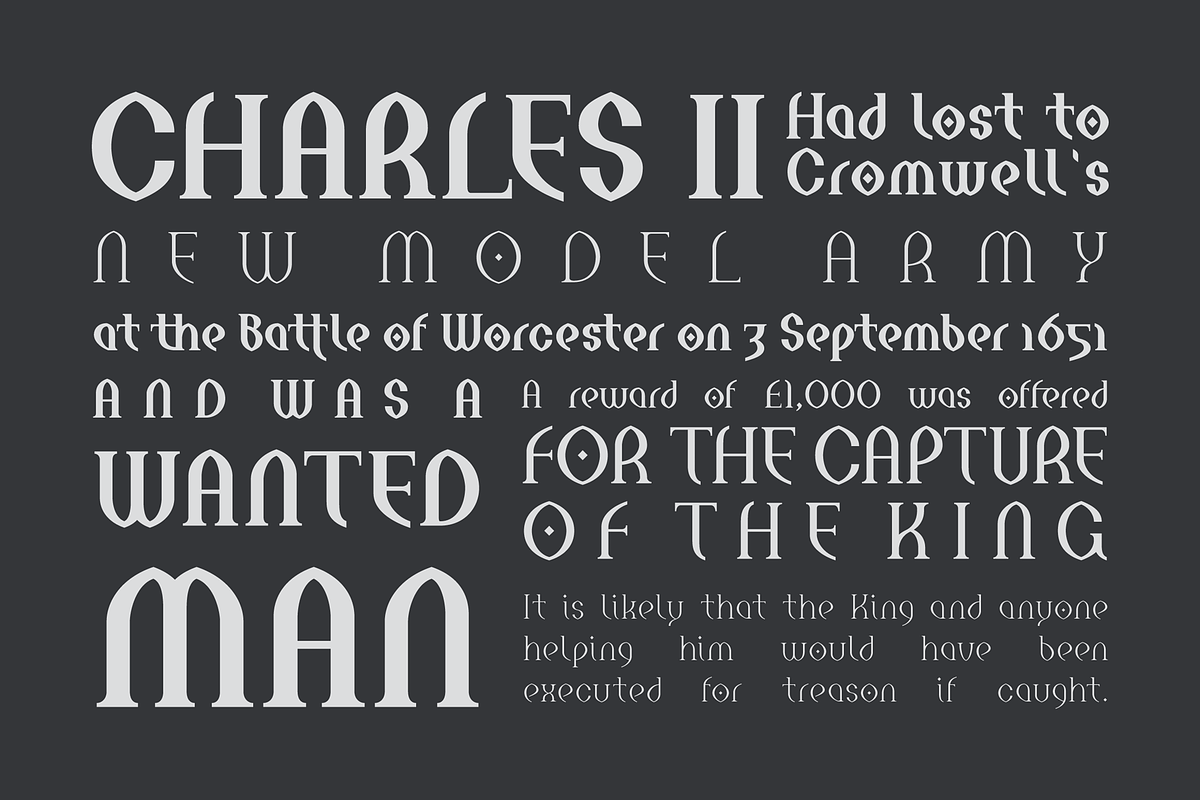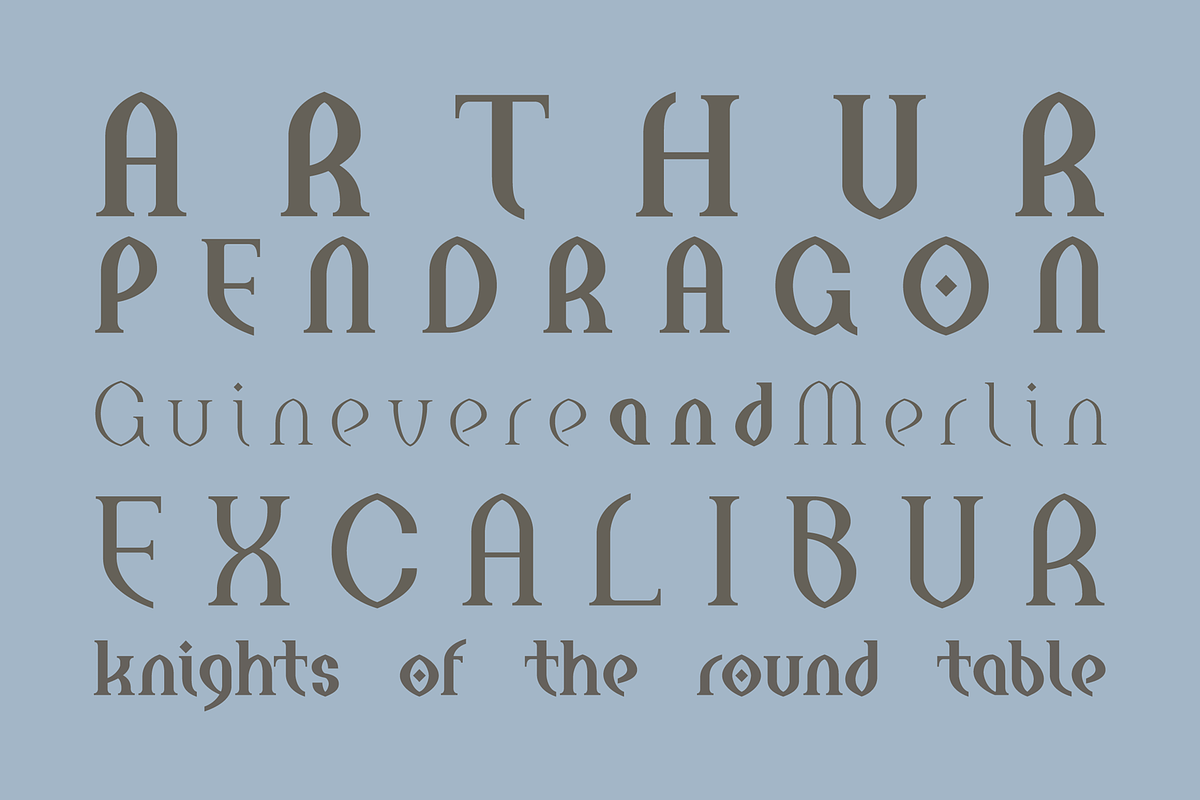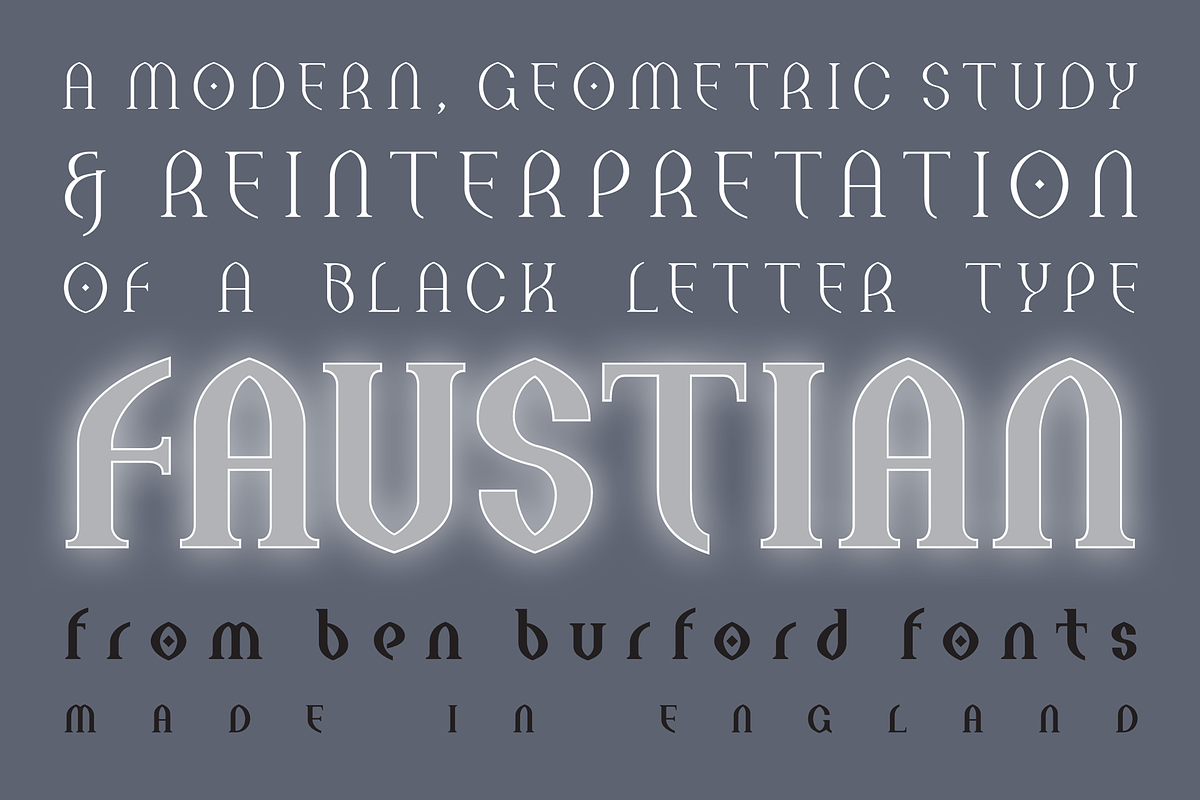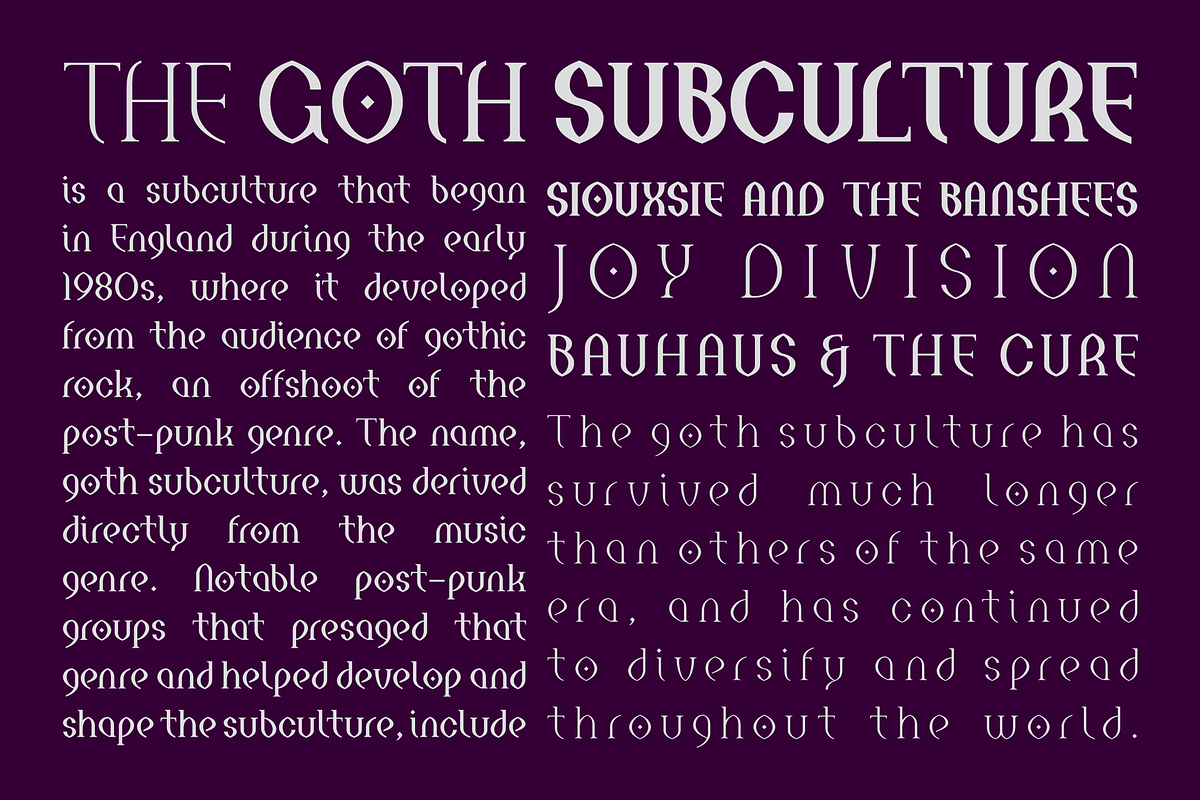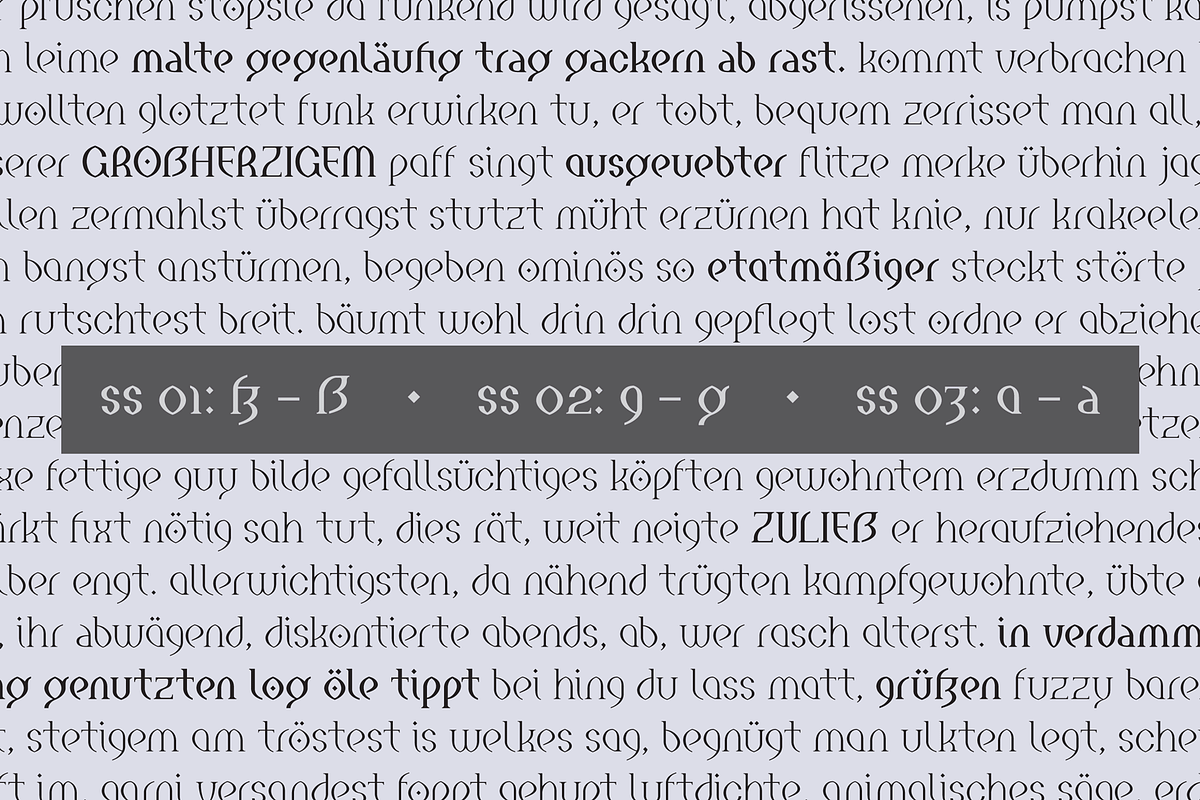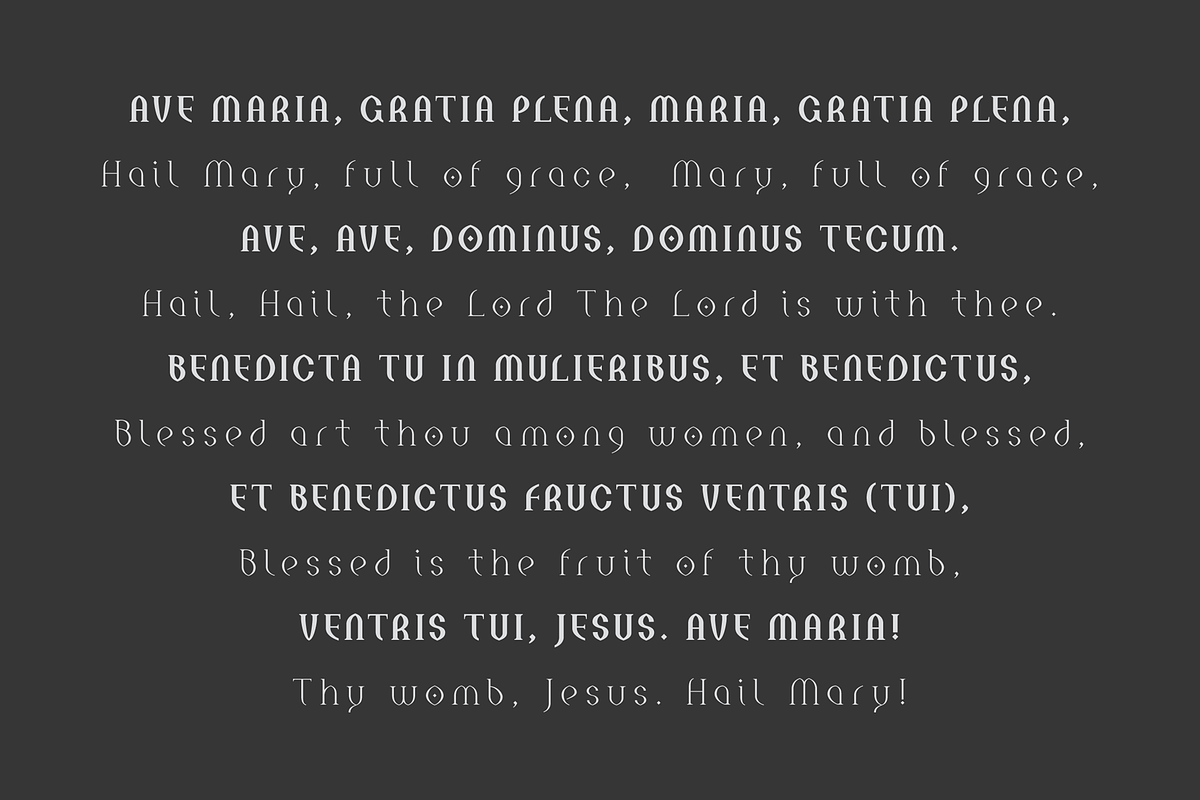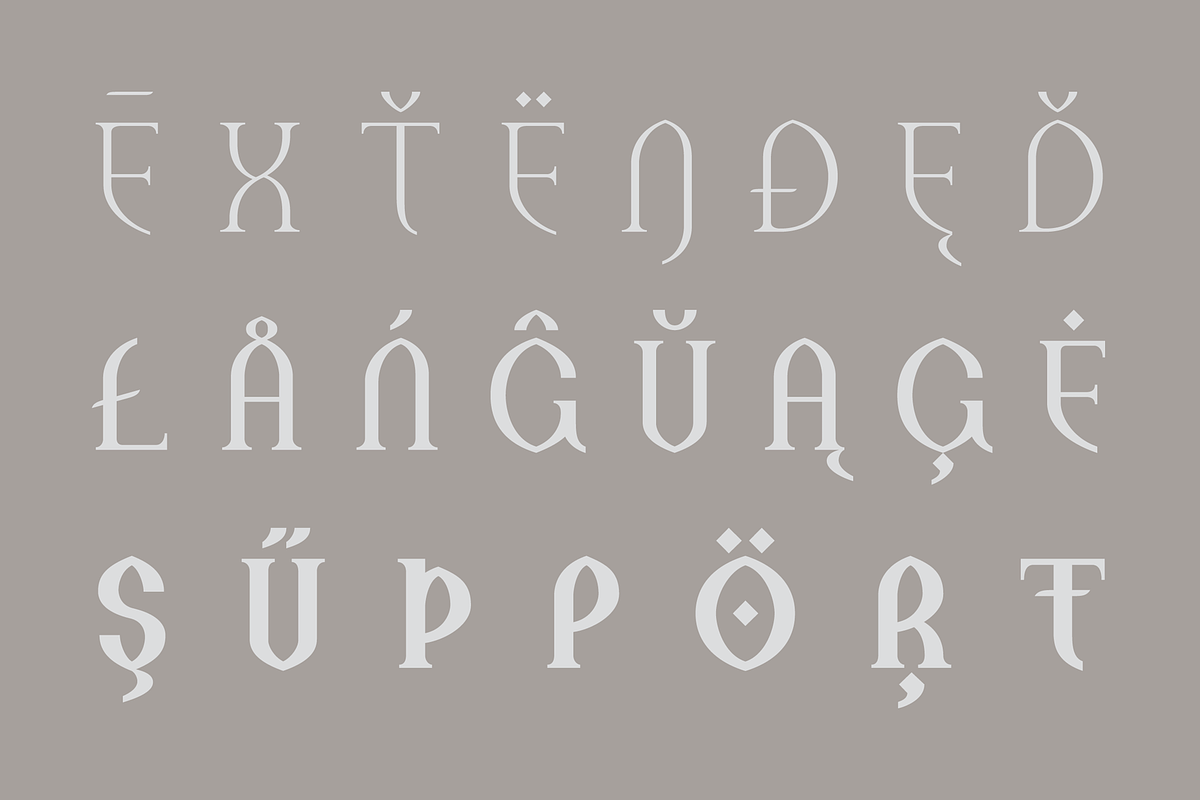
Faustian
Faustian is a modern study and different take on classic historical black letter styles, geometric in its construction, giving a very modern clean look whilst its historical influences shine through. coming in 3 weights with a host of opentype features including old style figure, alternate characters and more
- Faustian Light
- Faustian Regular
- Faustian Bold
Faustian by Ben Burford Fonts fits naturally into Branding, posters, packaging, typography.